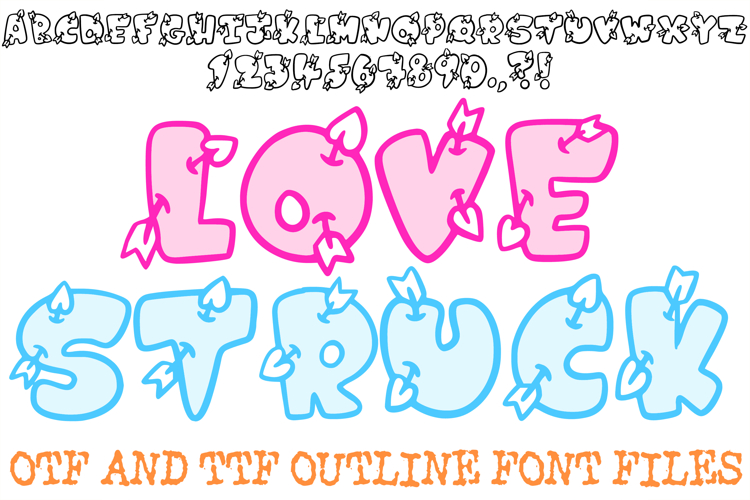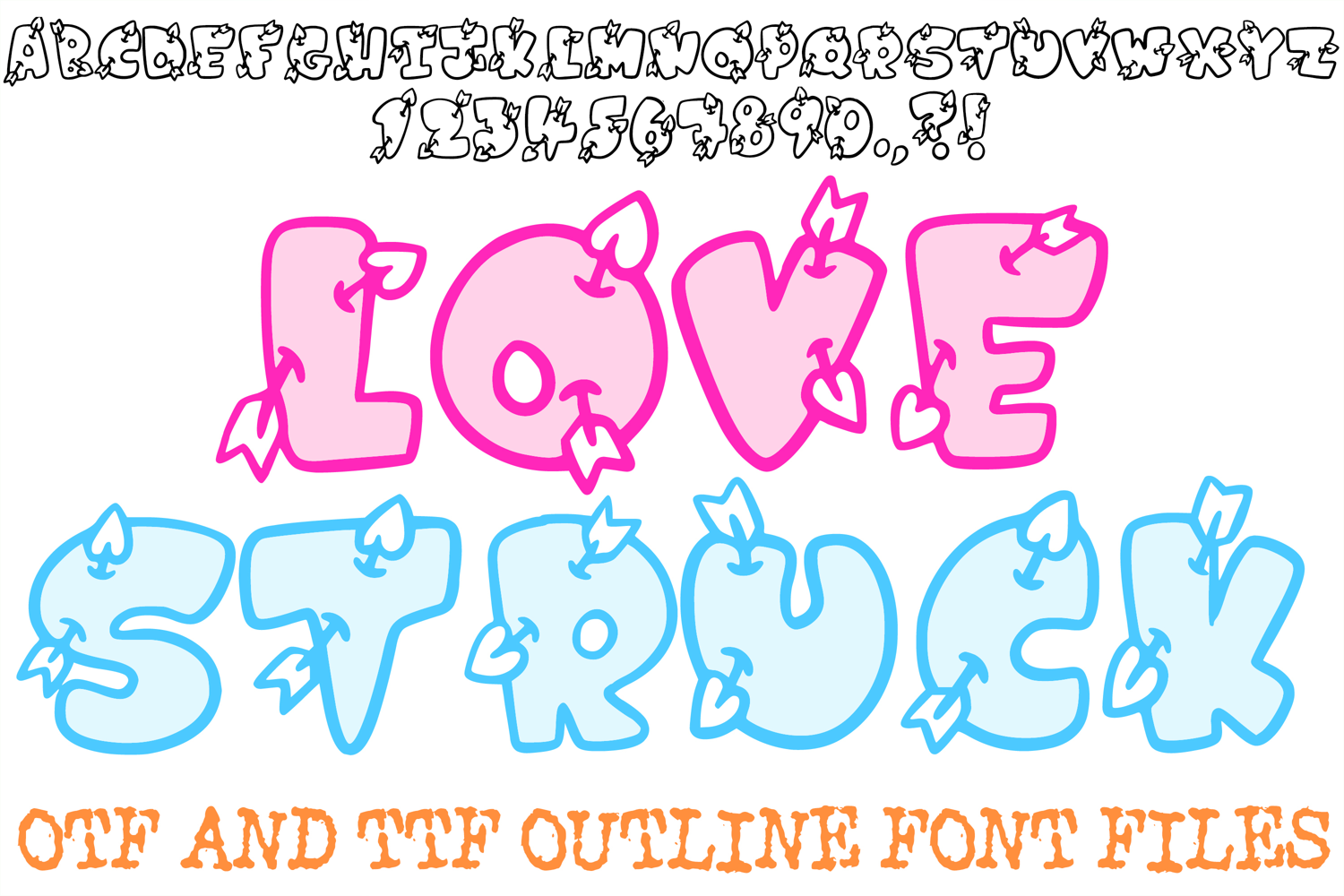
The Lovestruck Font is a charming, romantic display typeface featuring chunky, bubble-style letterforms pierced by Cupid’s arrows. With its soft curves and heart-tipped arrow details, this font is an ideal choice for designers working on Valentine’s Day cards, engagement announcements, wedding stationery, and playful social media branding.
The design captures the whimsical feeling of being "struck by love," with every character boasting a hand-drawn, tactile quality. Whether you are creating a logo for a boutique gift shop or designing custom apparel for a special anniversary, this font provides a sweet and high-impact aesthetic that is both decorative and legible.
Cupid’s Arrow Detail: Every letter and number features a stylized arrow passing through the character, adding a unique narrative element to your typography.
Playful Bubble Construction: The heavy, rounded weight of the letters gives your text a friendly, approachable, and modern look.
Heart-Tipped Accents: The arrows conclude with subtle heart shapes, reinforcing the romantic theme and adding a secondary layer of detail.
High-Visibility Titles: The bold, thick outlines ensure that your headlines pop against vibrant backgrounds, making it perfect for stickers and digital banners.